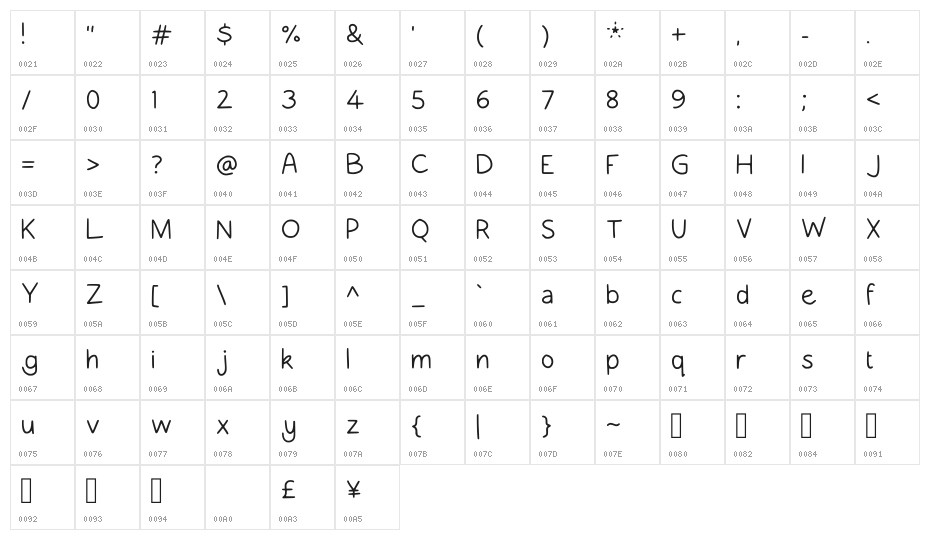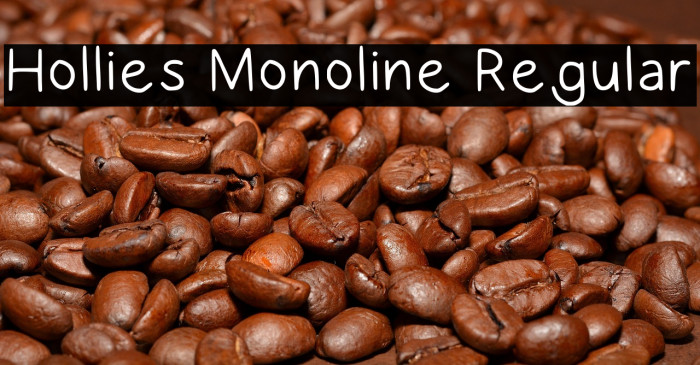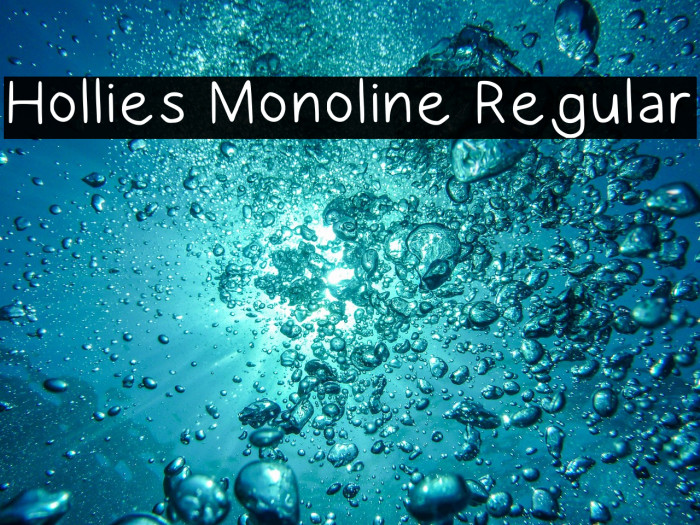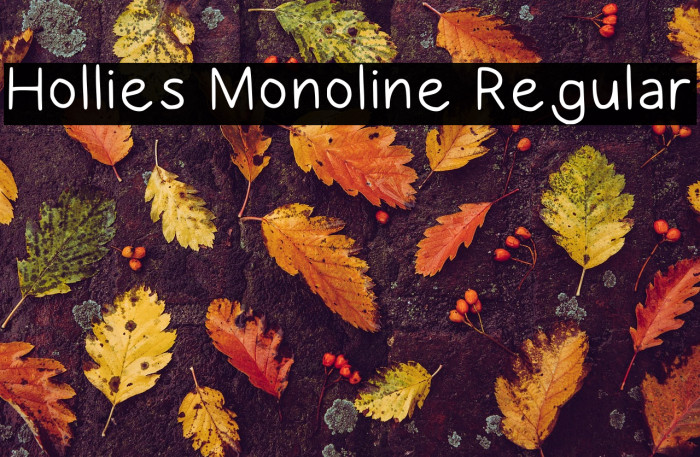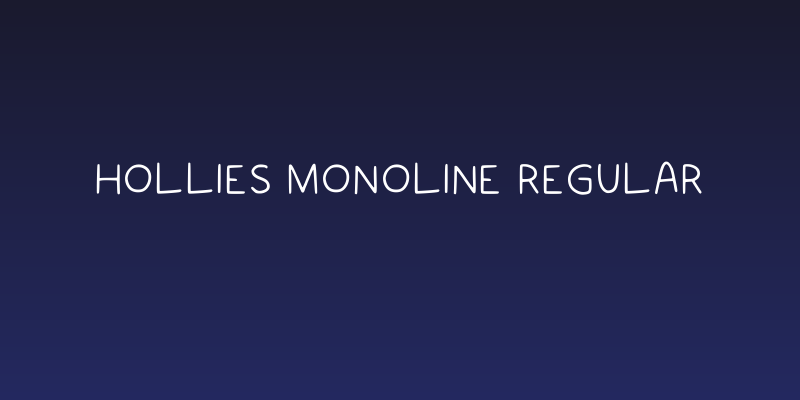
Hollies Monoline Regular Font
Hollies Monoline Regular Description
This font features a clean and simple monoline design, characterized by consistent stroke width throughout each character. The letters have a casual and friendly appearance, with rounded edges and a slightly playful touch. The uppercase and lowercase letters maintain a uniform style, ensuring readability and coherence. The numerals and special characters are designed to match the overall aesthetic, making it versatile for various applications. Its simplicity and clarity make it suitable for both digital and print media.
| Proposed Projects | Ideal for children's books, casual branding, greeting cards, and social media graphics. |